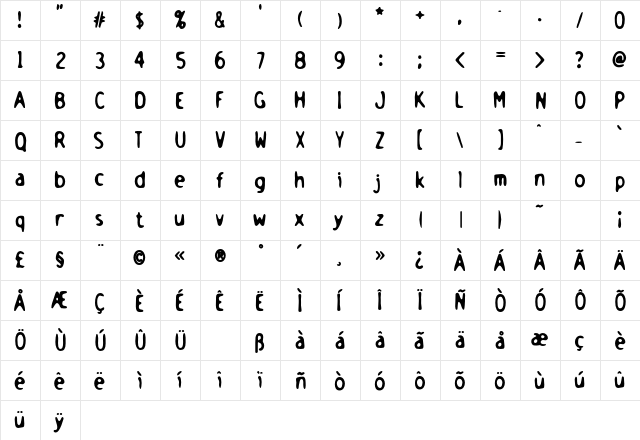
Holstein Bold
Design Context for Holstein Typeface
Holstein takes a measured approach to typography — its balanced proportions and neutral character make it a reliable workhorse for both digital and print work. Its bold stroke weight gives it real presence on the page.